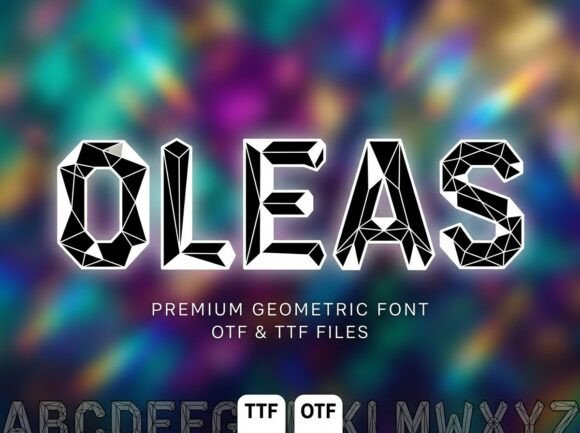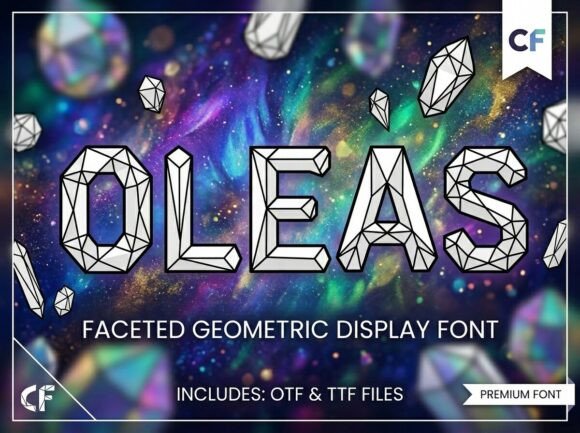
Introduction to Oleas Font
Refract your creative vision with Oleas, a crystalline display typeface that captures a “geometric-and-prismatic” soul.
This font features bold, sans-serif letterforms masterfully constructed from a rhythmic tapestry of low-poly facets, mimicking the sharp angles of a precision-cut gemstone or digital wireframe With its heavy structural weight and high-tech personality, Oleas is the premier choice for independent jewelry branding, crystalline mineral exhibits, gaming interface design, and high-impact “shattered-and-sophisticated” social media headers.